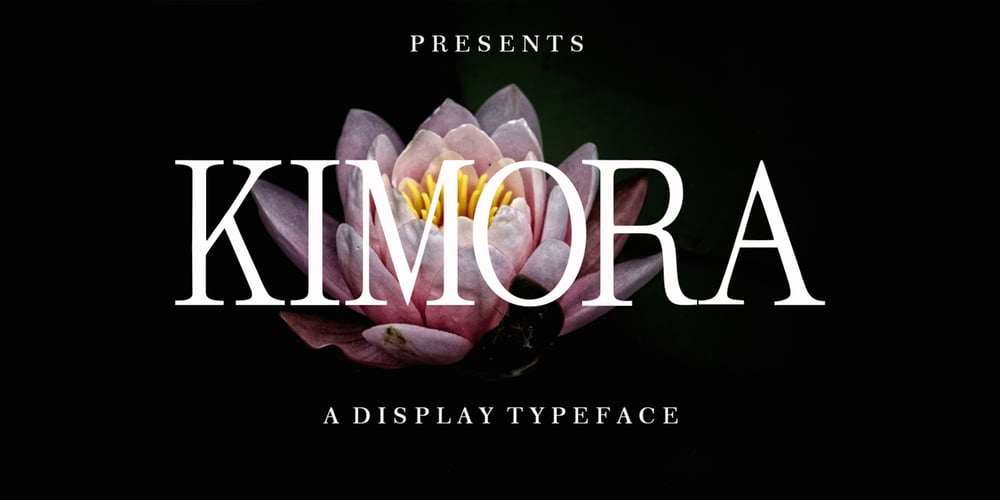
Kimora
Kimora font
Kimora Font Family was designed by Muammar and published by Scoothtype. Kimora contains 1 styles and family package options. Kimora is a versatile, modern unique and elegant sans serif font.File Type (Desktop Font): Style: Regular, Shadow, BoldCreate unique & beautiful logotype, use it as an elegant solution for your next magazine layout, or choose Kimora for any graphics that require a sleek look with a elegant flair.